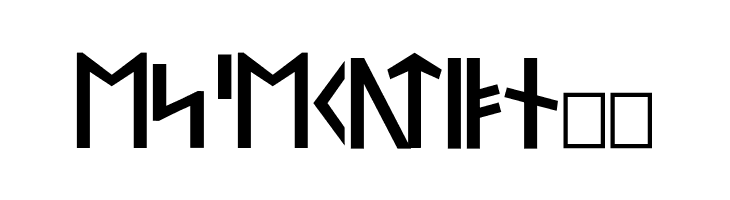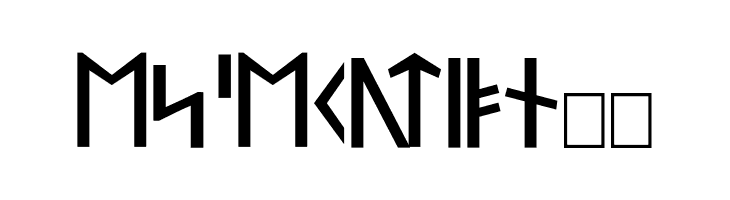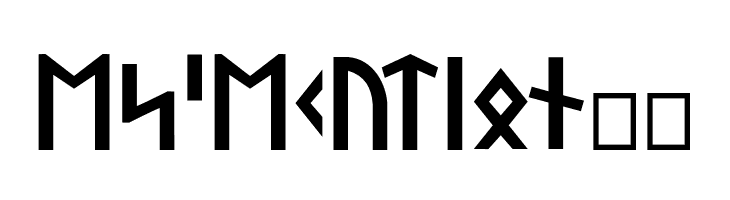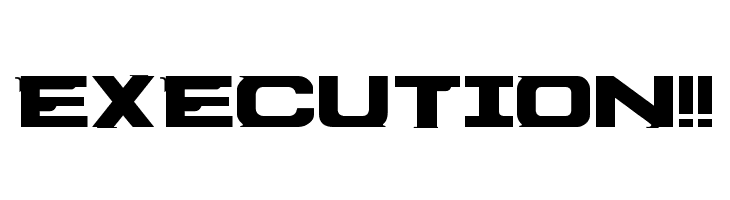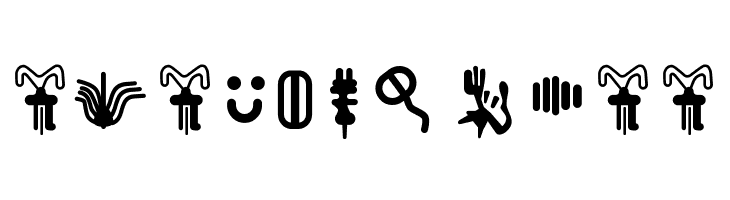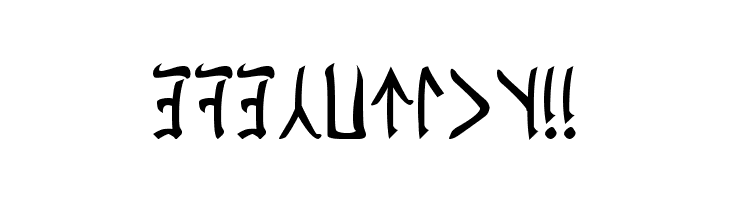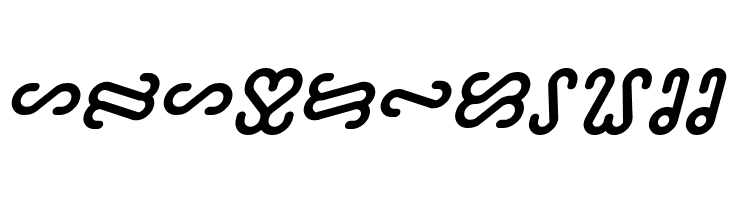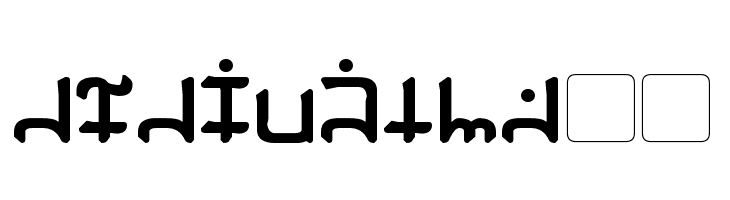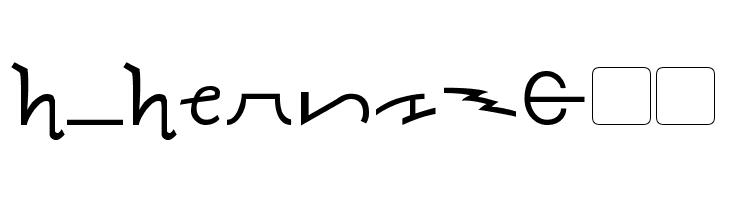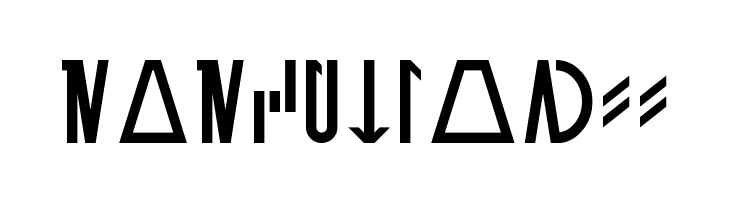
A bold, futuristic font with angular, geometric characters.
Decorative, pictographic font with ancient, symbolic motifs.
A bold, angular font with a hand-carved, ancient script style.
A bold, italic font with serpentine, decorative characters.
A bold, decorative font with intricate, mystical letterforms.
A decorative and mystical font with intricate, stylized characters.
A bold, geometric font with a futuristic and mysterious aesthetic.
A bold, italicized font with angular, rune-like characters.
A bold, decorative script inspired by ancient runic alphabets with a mythical and adventurous style.
A bold, angular font inspired by ancient runic alphabets with a rugged, hand-carved look.
A mystical, rune-like decorative font with bold, intricate designs.
A bold, decorative font with sharp, angular characters, ideal for fantasy themes.
A bold, italicized font with sharp, angular, and mystical design.
A bold, italicized font with angular, geometric characters, perfect for fantasy themes.
A bold, angular font with an italicized, mystical appearance.
A bold, angular font with a futuristic and ancient script-like appearance.
A bold, angular font with a runic, tribal aesthetic.
A bold, angular font inspired by ancient runic alphabets with a modern twist.
A bold, angular font inspired by ancient runic designs.
A bold, angular font with a geometric, maze-like design.
A bold, decorative font with a mummy-like bandage design.
Decorative, fantasy-inspired script with bold, abstract forms.